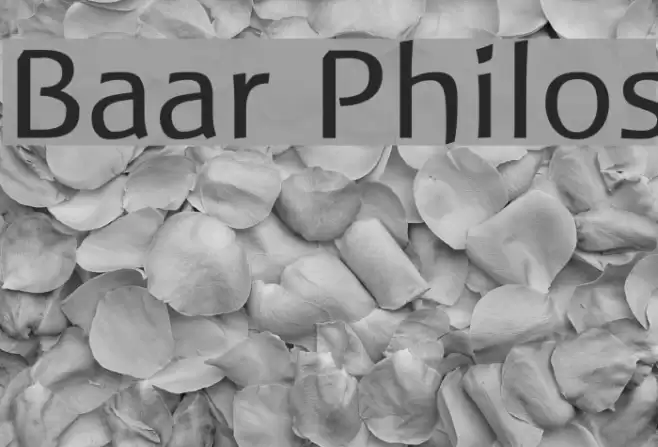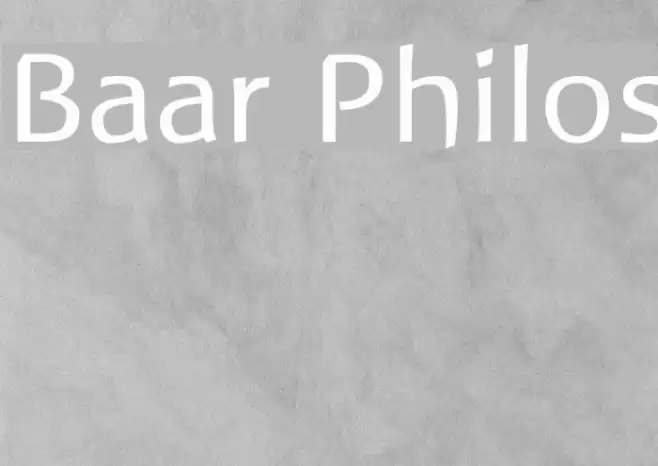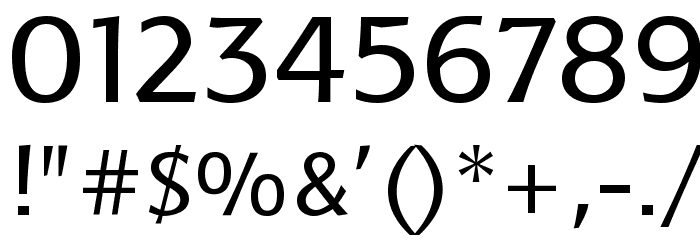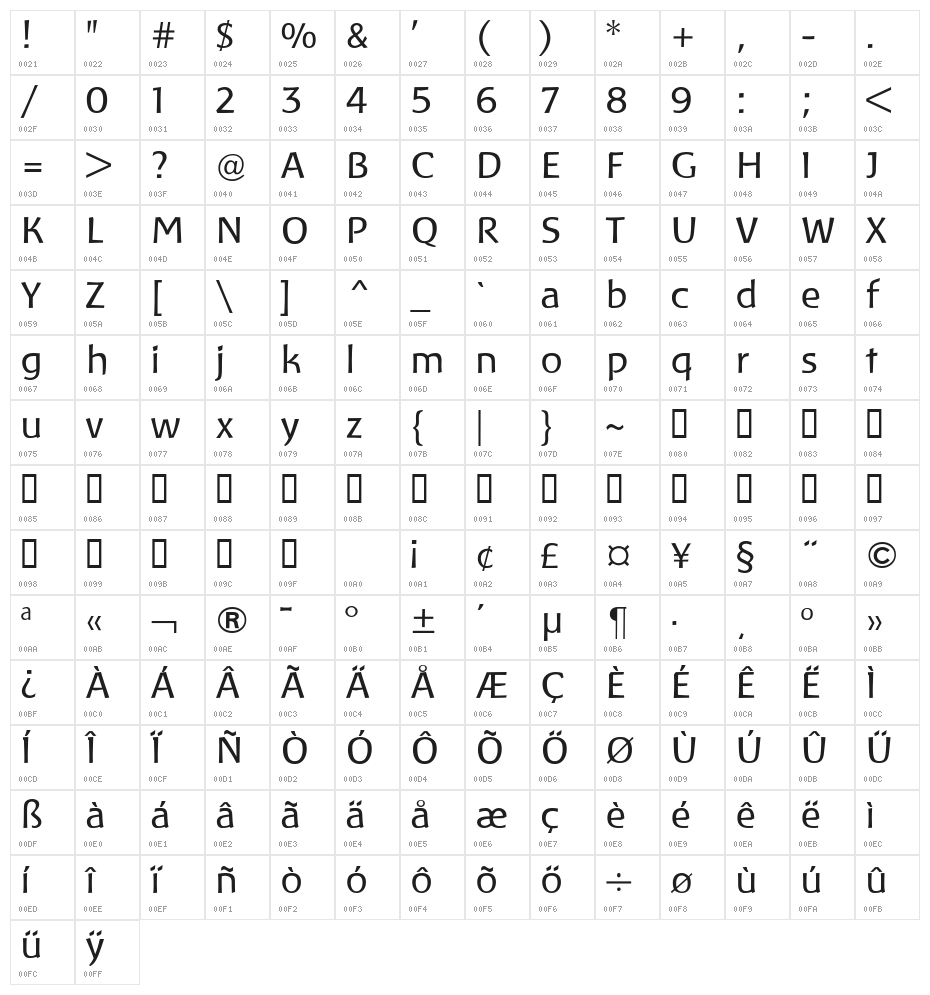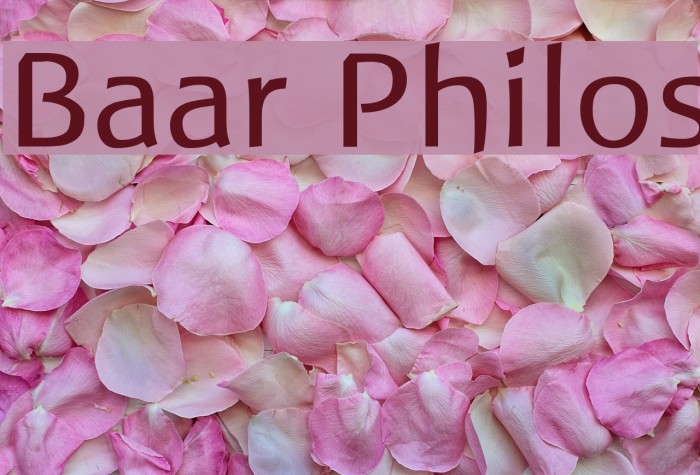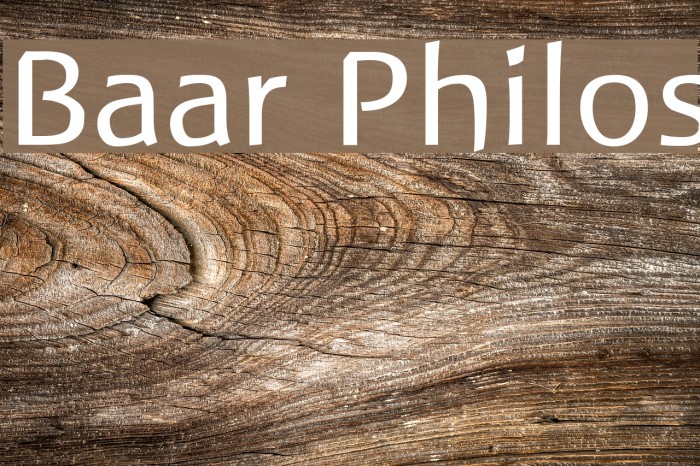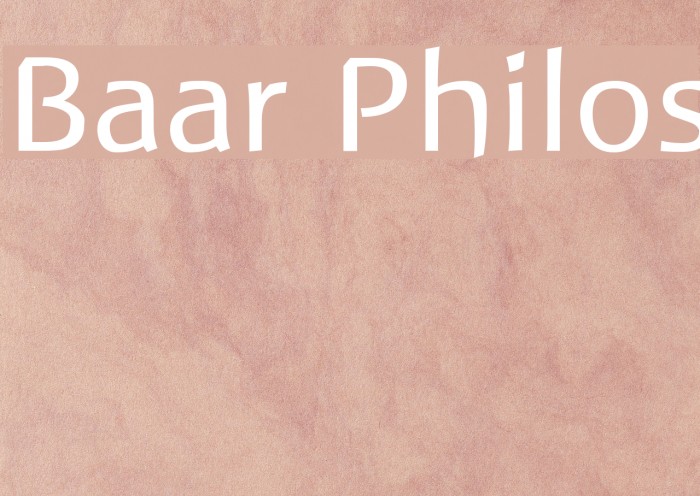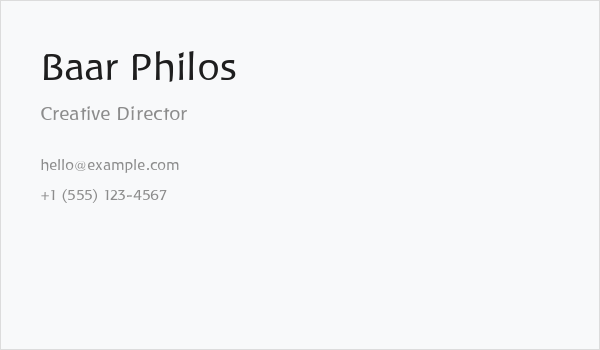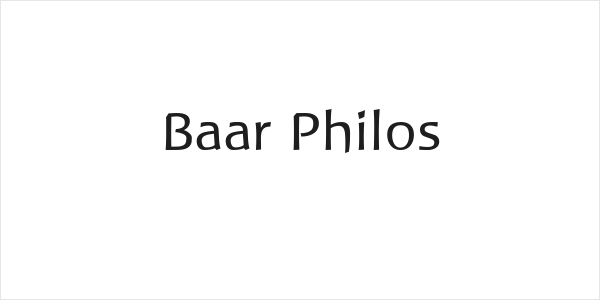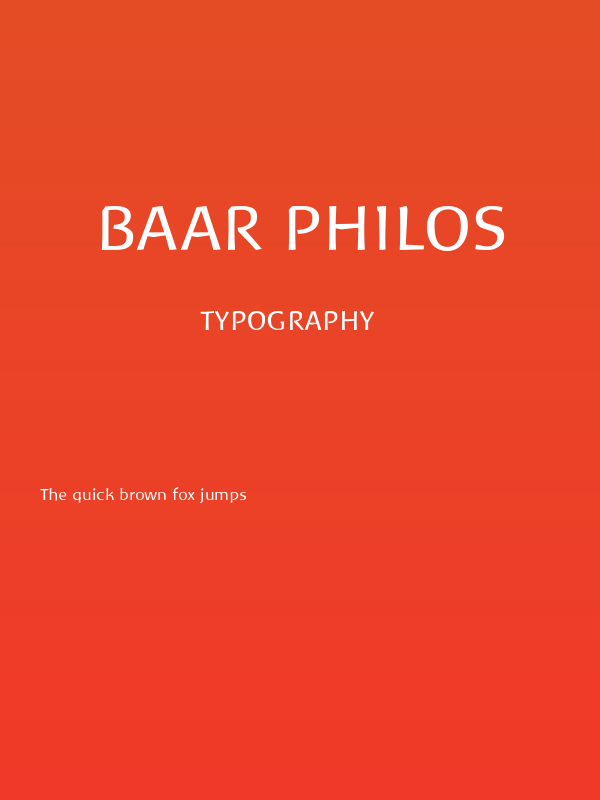
Baar Philos Font
Baar Philos Description
This font features a clean and modern sans-serif style with a slight geometric influence. The characters are well-balanced, offering a harmonious blend of curves and straight lines. The uppercase letters are bold and assertive, while the lowercase letters maintain a friendly and approachable appearance. The numerals are clear and easy to read, making them suitable for a variety of applications. Special characters are designed with the same attention to detail, ensuring consistency throughout the typeface. The overall look is professional and versatile, making it ideal for both digital and print media.
A modern sans-serif font with a clean, geometric style from Uncategorized fonts.